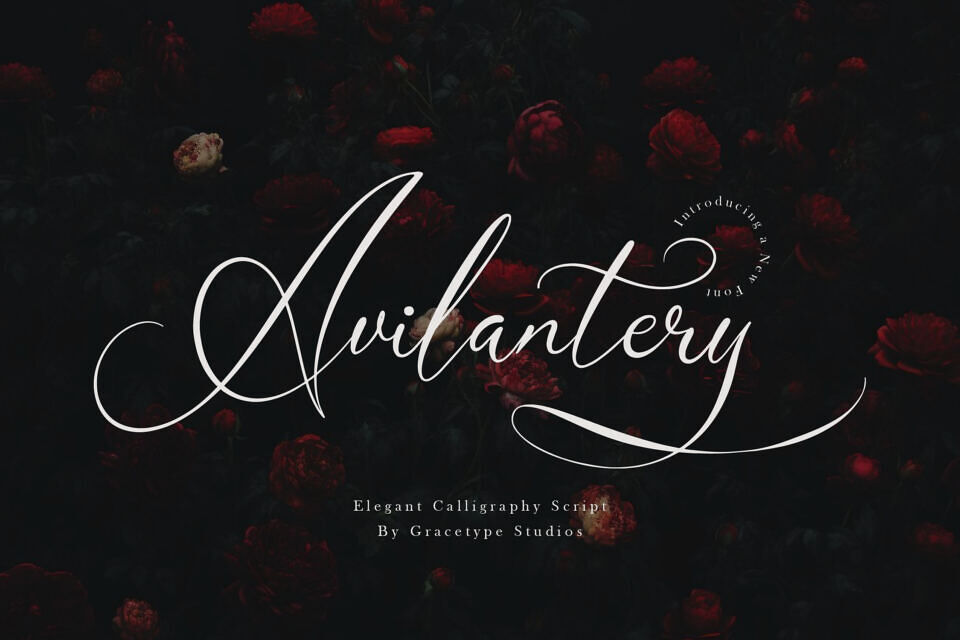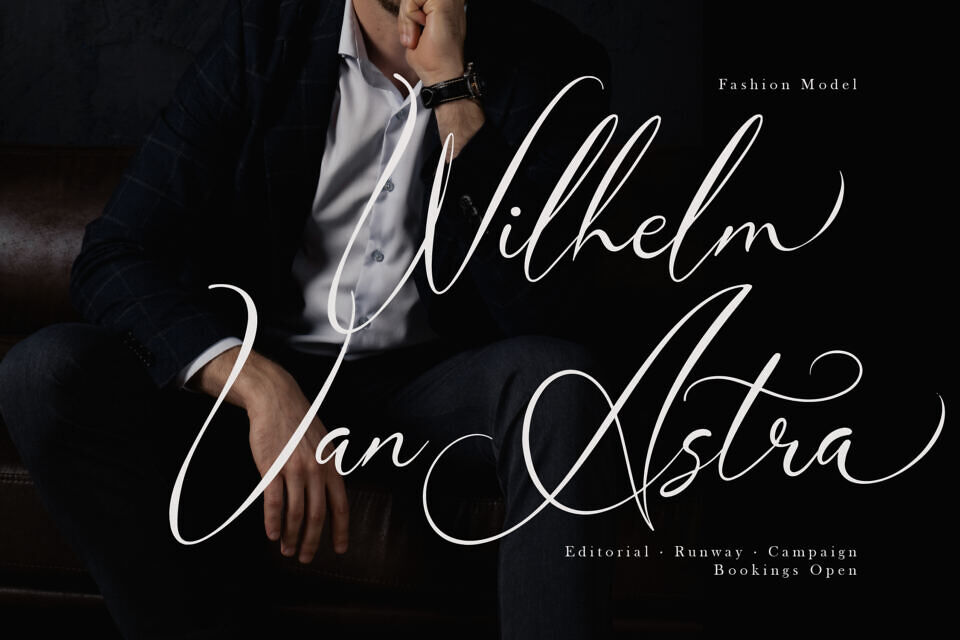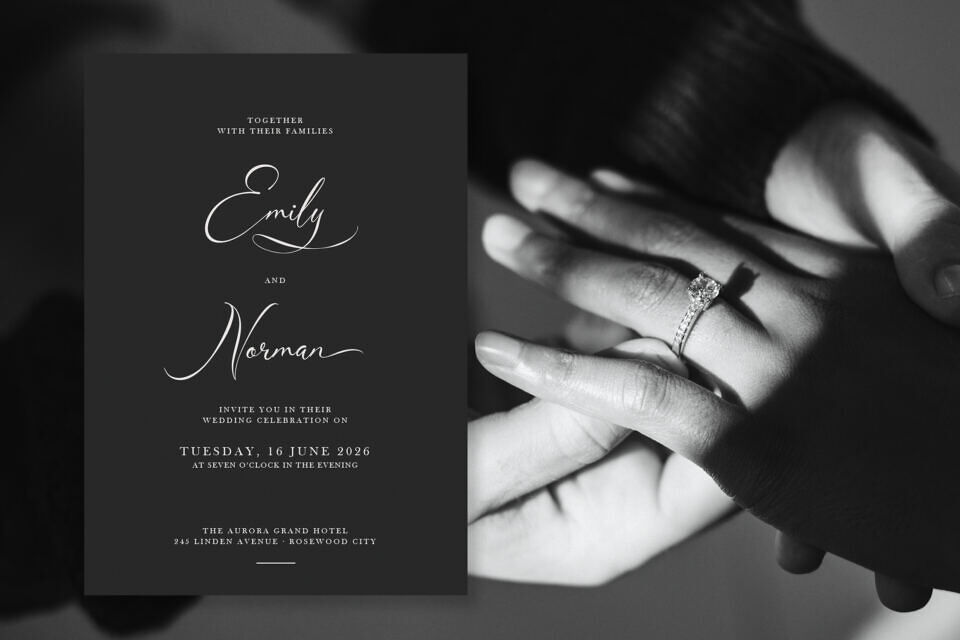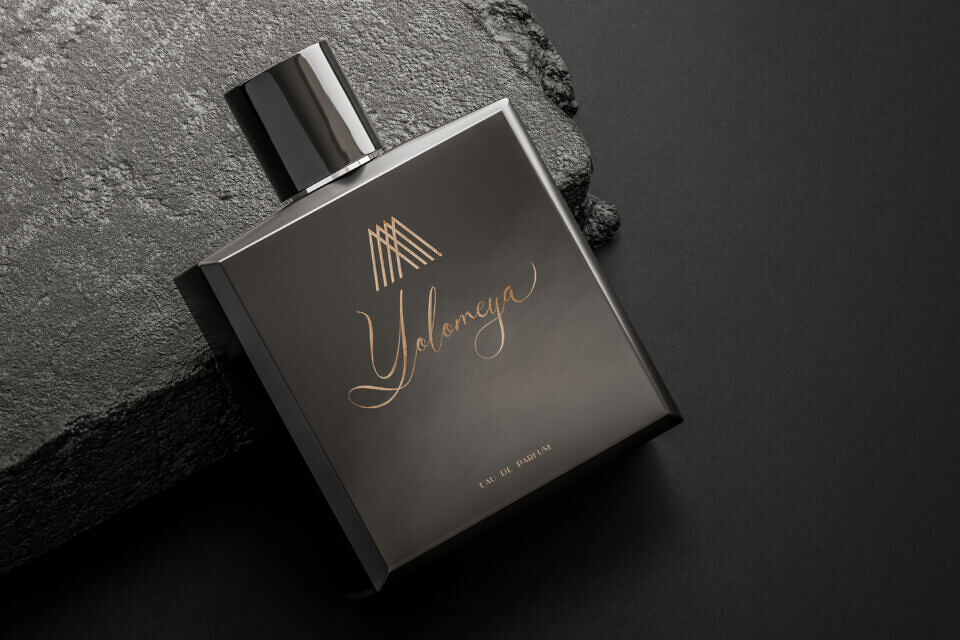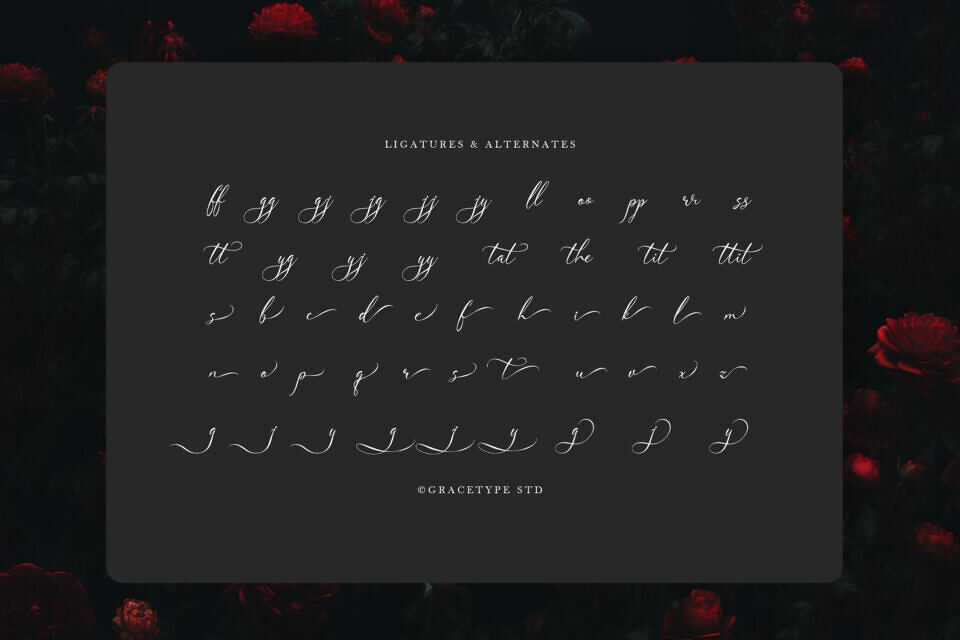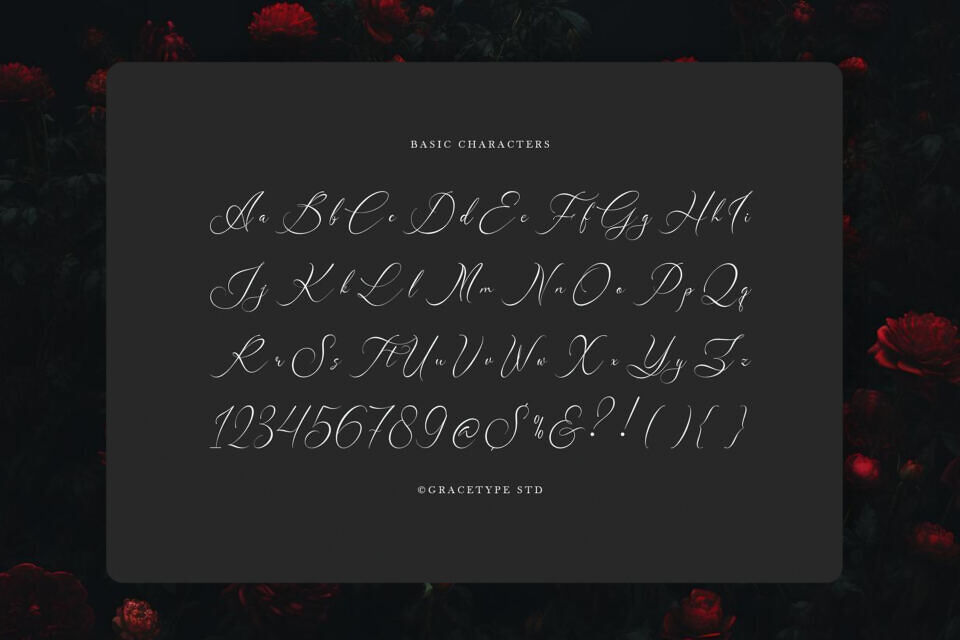
Avilantery Font
Experience romance with the elegant Avilantery font, featuring poetic flourishes and intricate loops. Its sophisticated design evokes luxury and sophistication, perfect for high-end events and branding.
This typeface is a must-have for photographers, event planners, and luxury artisans. Enhance its natural beauty by using it for initials, signatures, or as a decorative accent alongside a clean, modern serif.